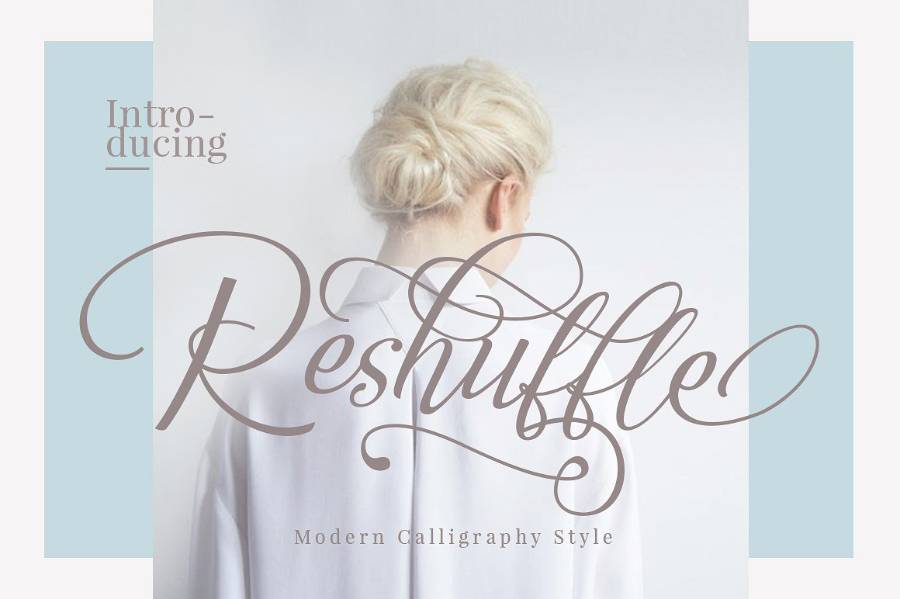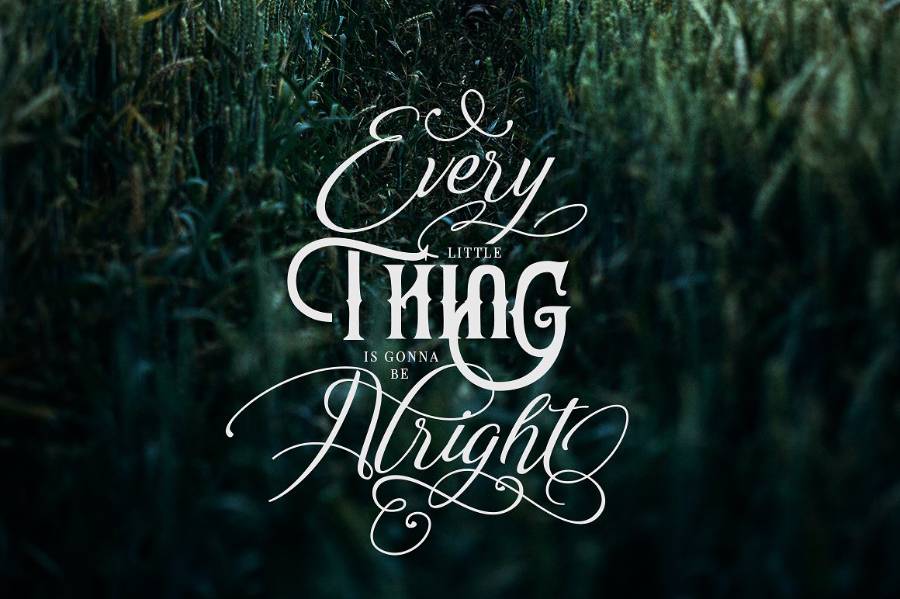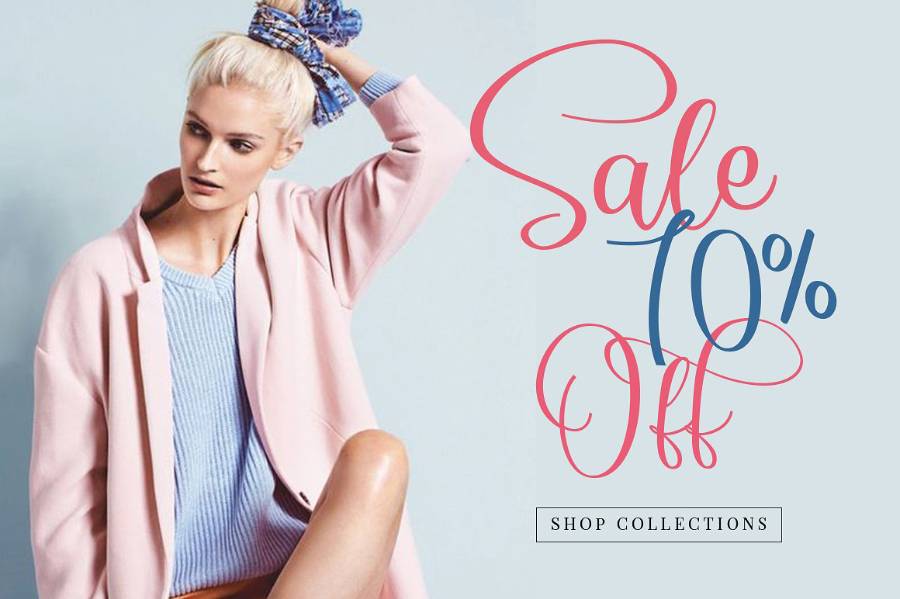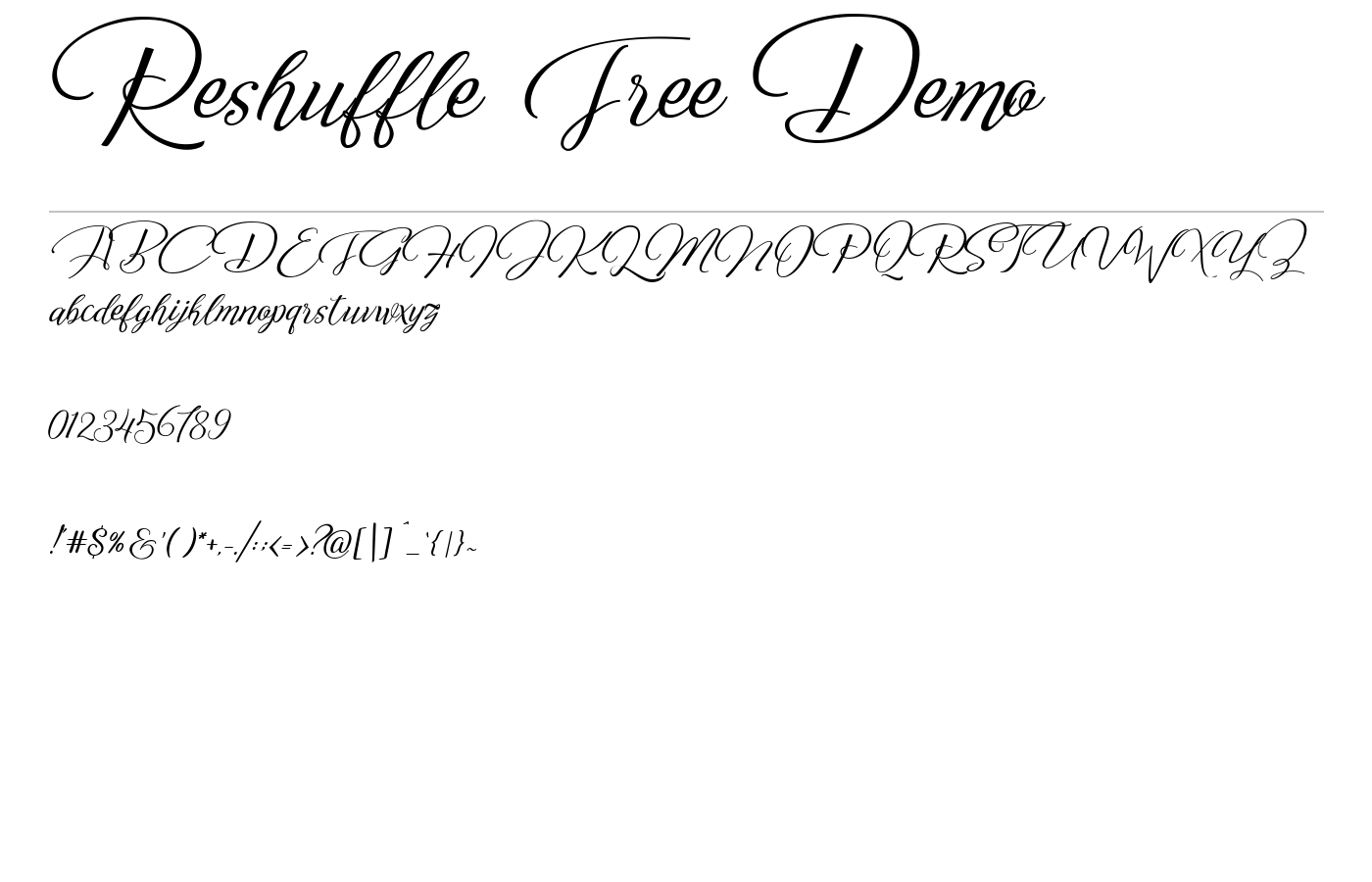
Reshuffle Script Demo is an elegant, delicate script font with a flowing, handwritten style that features thin strokes and graceful curves. Its high contrast and refined letterforms make it perfect for decorative uses such as invitations, branding, and luxury packaging, where a sophisticated and personal touch is desired. This font brings a timeless, classy feel to any design that calls for a refined, artistic look.
Reshuffle Script Demo Font
About Reshuffle Script Demo Font
| Font family | Reshuffle Script Demo Font |
| Release date | 2017-01-26 |
| Designer | Hendra Maulia |